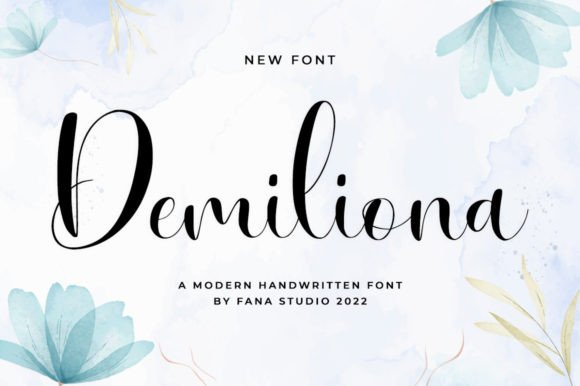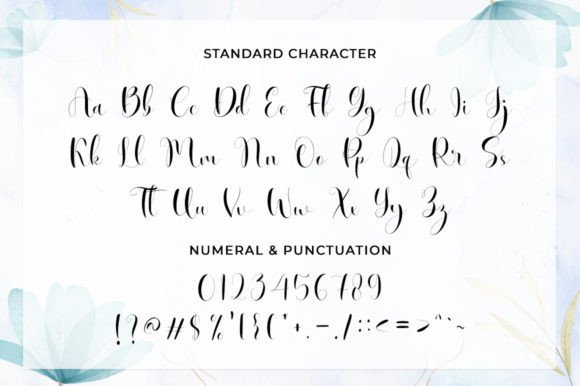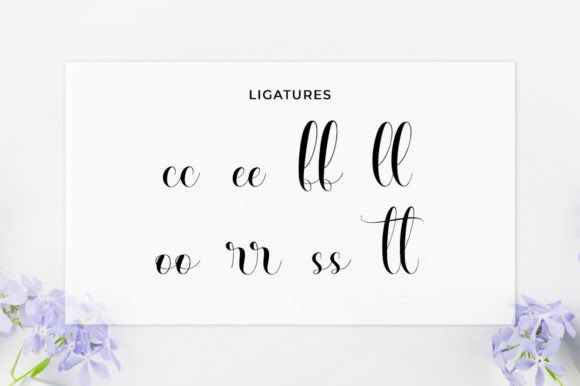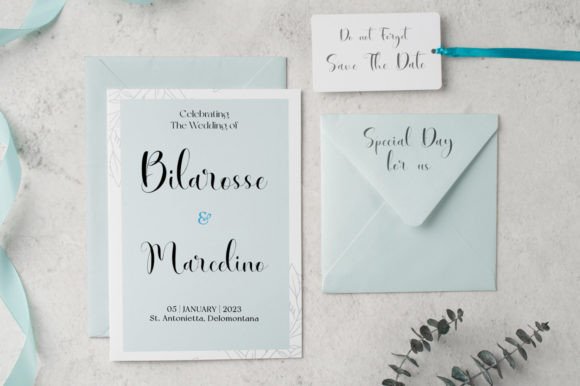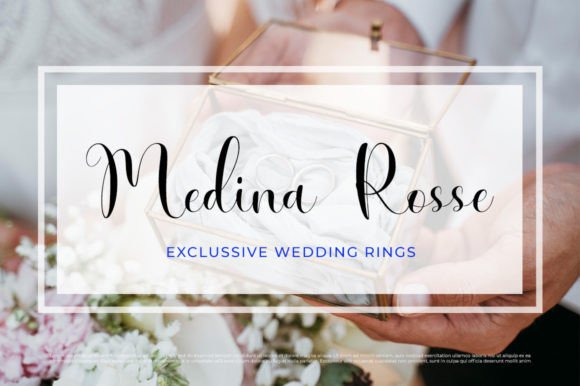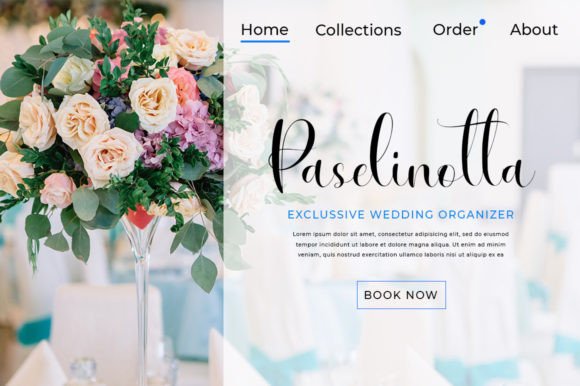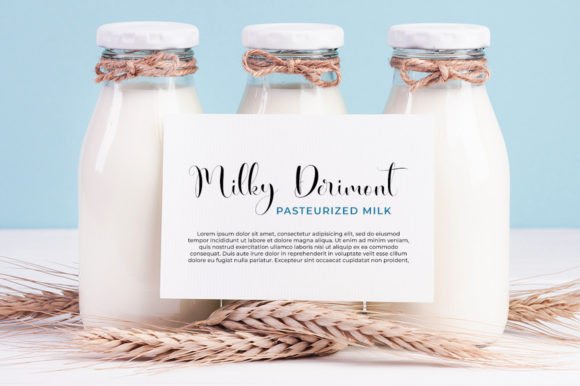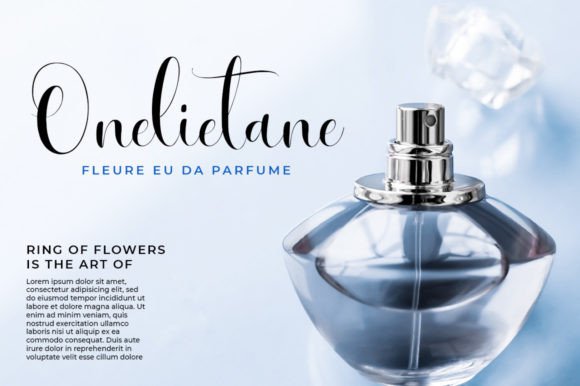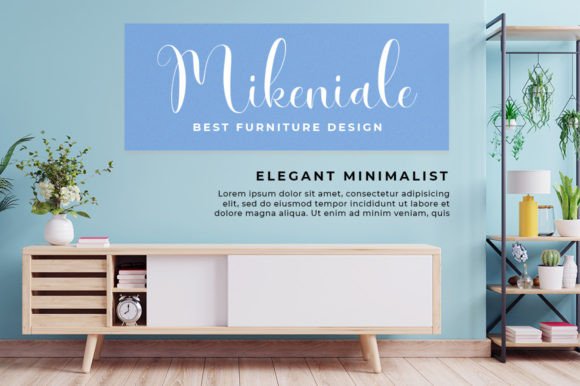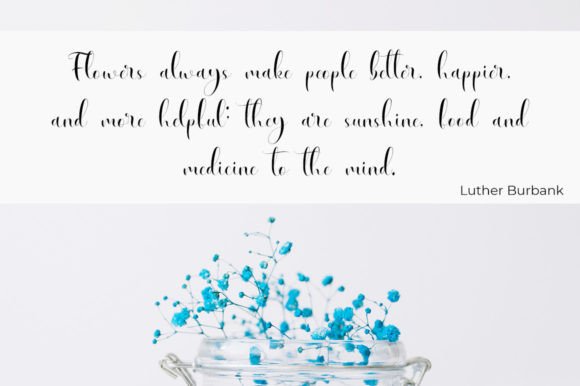
Demiliona Font
About Demiliona Font
Demiliona is a sweet and romantic cursive handwritten font that brings warmth, charm, and personality to your creative projects. With its flowing strokes and gentle curves, this font is perfect for designers looking to add a soft, joyful, and emotional feel to their work. Whether you’re designing for love-themed occasions or simply want a beautiful script that feels personal and elegant, Demiliona is a delightful choice.
This font captures the essence of handwritten lettering with a modern touch. It offers a perfect balance between elegance and playfulness, making it suitable for both casual and formal design needs. From wedding stationery to product packaging, Demiliona adds a romantic and heartfelt atmosphere to every project.
A Font Full of Romance and Joy
Demiliona was crafted with love and attention to detail. Each letter flows naturally, mimicking real handwriting with its fluid motion and stylish flourishes. The font creates a soft, graceful rhythm when used in paragraphs or headlines, making it ideal for projects that need a personal, emotional, or intimate tone.
Whether you’re designing a wedding invitation, a heartfelt quote, or a greeting card, Demiliona will help you express your message with sincerity and beauty. Its joyful character is perfect for capturing feelings of affection, celebration, or tenderness.
Perfect For a Wide Range of Projects
Here’s where Demiliona Font truly shines:
• Wedding invitations & save-the-dates
• Valentine’s Day cards & romantic notes
• Logos & branding for boutique or beauty businesses
• Social media graphics with a soft, feminine touch
• Product packaging for gifts, candles, or handmade items
• Scrapbooking & journaling projects
• Event posters or flyers with a romantic or elegant theme
The versatile style of Demiliona allows it to adapt beautifully to both print and digital platforms. It enhances designs without overpowering them, adding an emotional and graceful touch.
Demiliona includes:
• Uppercase and lowercase letters
• Numbers and punctuation
• Ligatures and stylistic alternates
• Multilingual support
Why Choose Demiliona?
Demiliona isn’t just a pretty font—it’s a creative tool that brings charm and warmth to your work. Its handwritten nature adds a human touch, while the elegant curves offer a stylish and graceful finish. It’s a must-have for anyone working with love-themed content, feminine branding, or personalized design.
Let Demiliona be the font that tells your story—sweetly, softly, and beautifully.